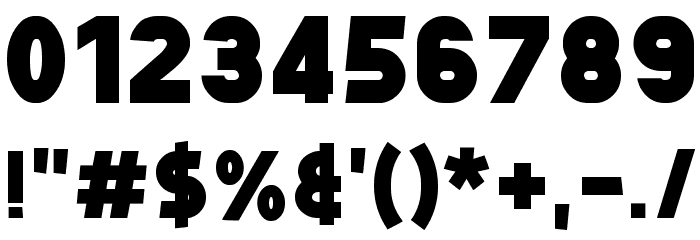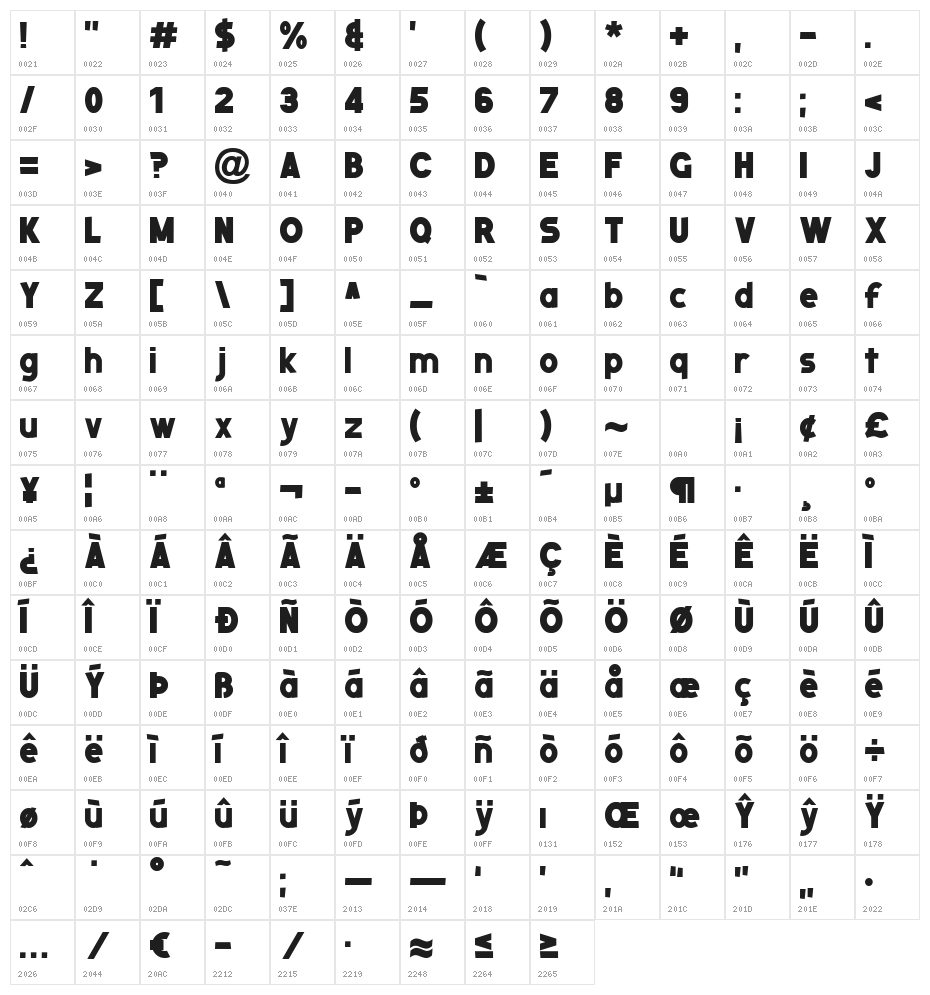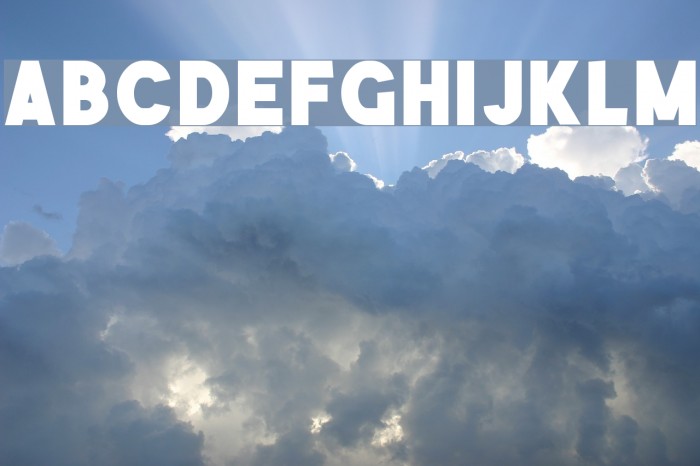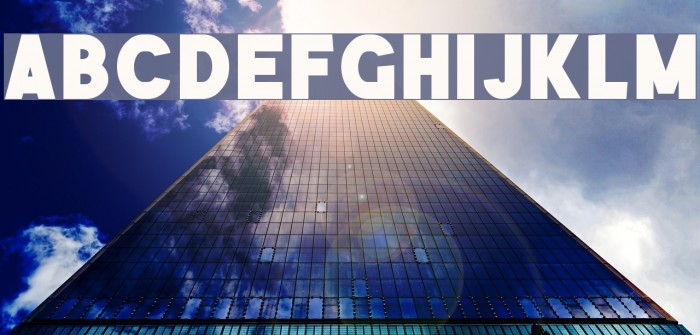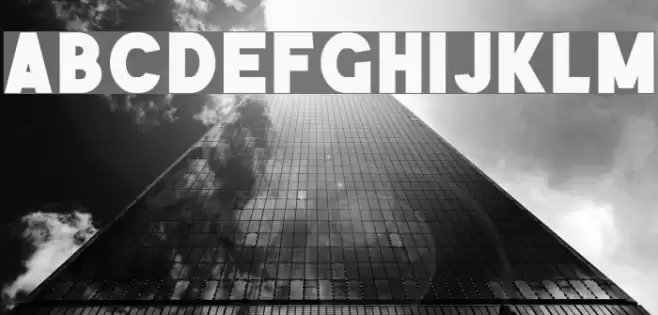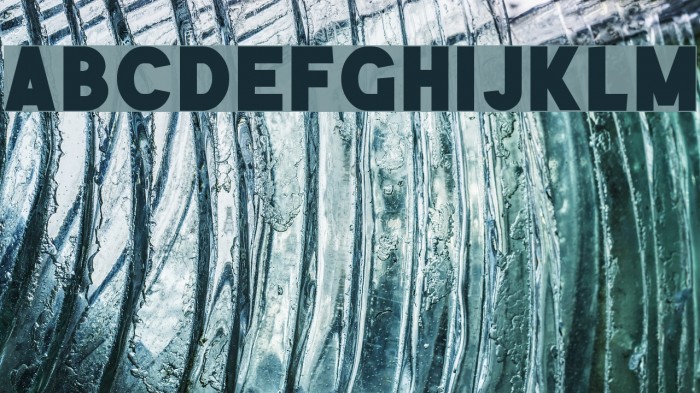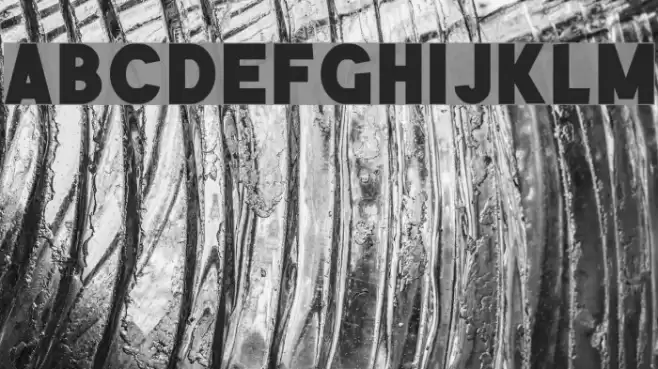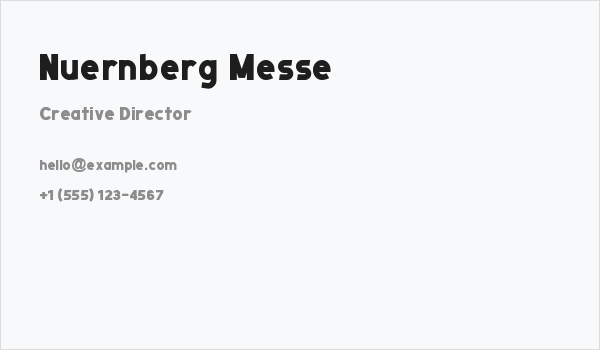
Nuernberg Messe Font
Nuernberg Messe Description
This font features bold, geometric letterforms with a strong presence. The uppercase and lowercase letters are designed with a uniform stroke width, contributing to a clean and modern aesthetic. The characters are well-proportioned, with a slight emphasis on horizontal strokes, giving them a sturdy and stable appearance. The numerals are equally bold and maintain the geometric style, ensuring consistency across all characters. The special characters are crafted to match the overall design, making this font versatile for various applications. Its boldness and clarity make it suitable for impactful headlines and attention-grabbing designs.
Proposed ProjectsIdeal for branding, advertising, posters, and any project requiring a strong visual impact.